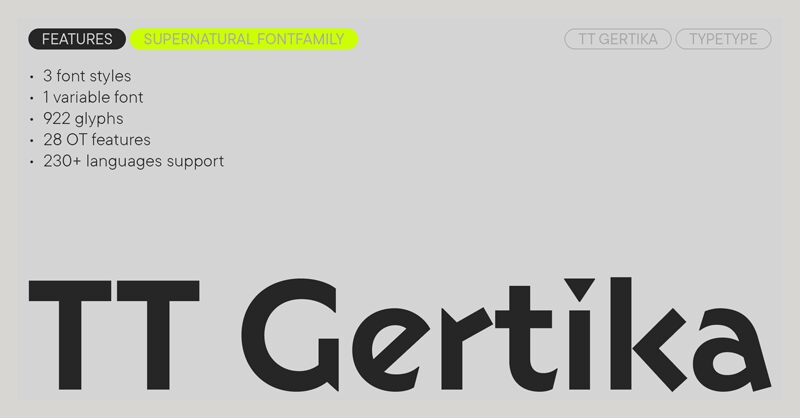
TT Gertika Bold font by TypeType Foundry is a free bold sans serif typeface that hits that sweet spot between geometric rigor and friendly curves. The letters feel sturdy and blocky at first glance, but the softened corners and open counters keep them from feeling stiff. It reads as confident and contemporary without shouting, so you get strong impact in a clean, unfussy voice that holds up at both large and mid-range sizes.
Using TT Gertika Bold, headlines snap into place, logos feel grounded, and UI labels stay legible even in tight layouts. This free font works beautifully for branding, website hero text, posters, app interfaces, packaging, and social graphics where you need punchy clarity. Pair TT Gertika Bold with a lighter weight from the TT Gertika family or a simple humanist serif for body copy to keep your hierarchy clear and your message easy to scan.